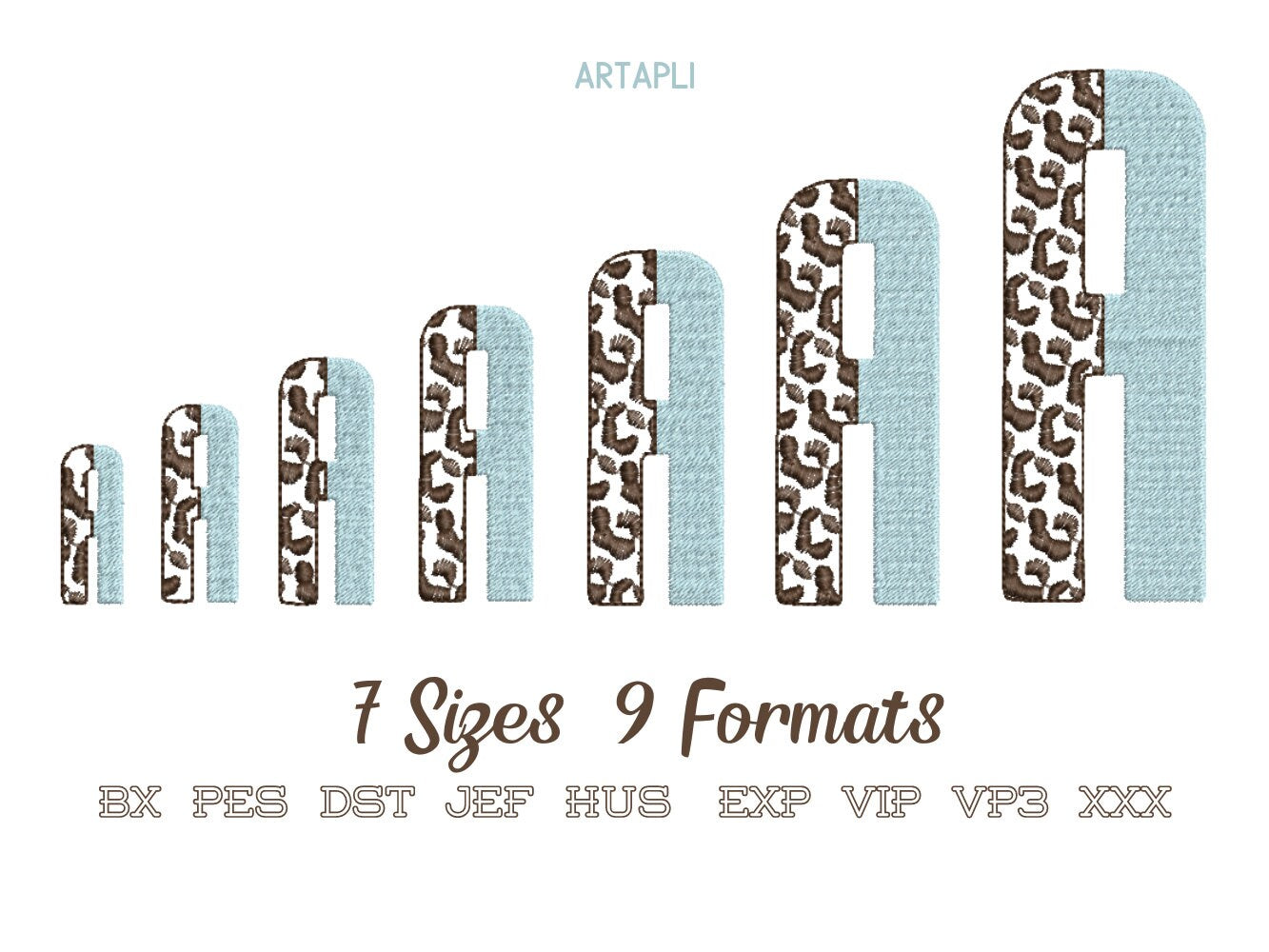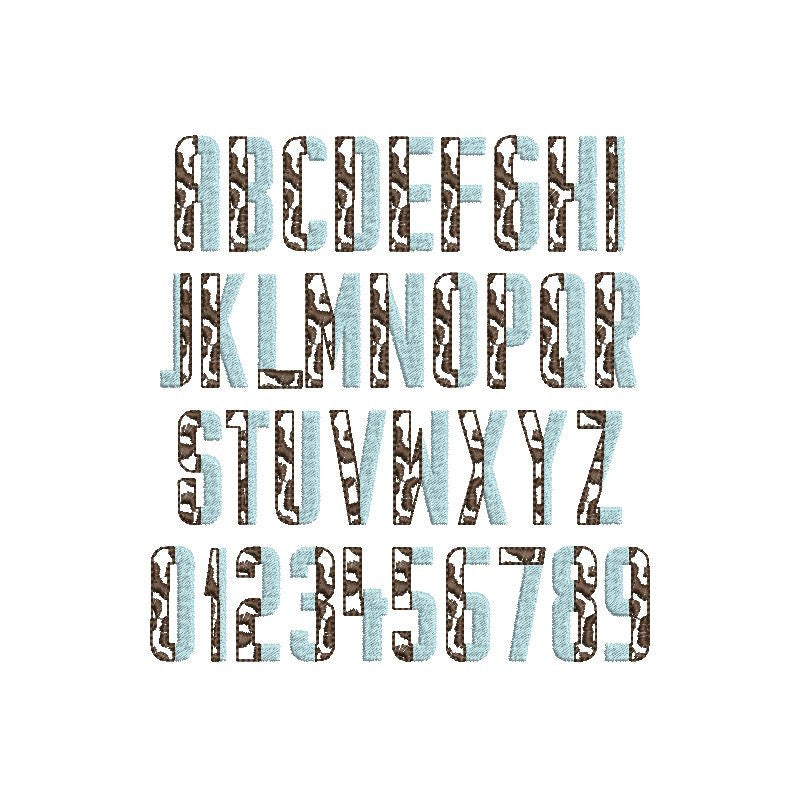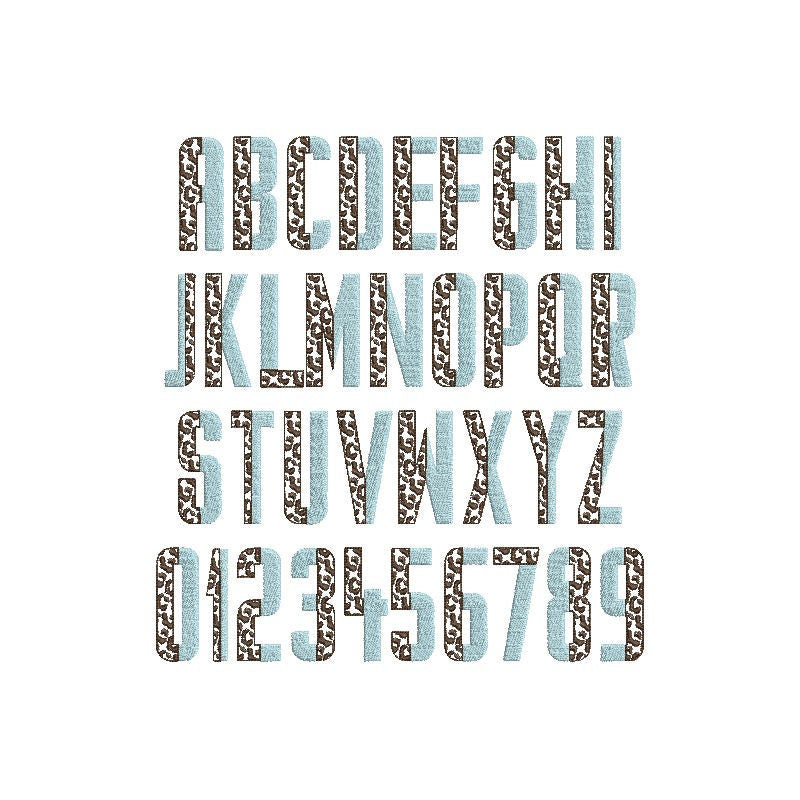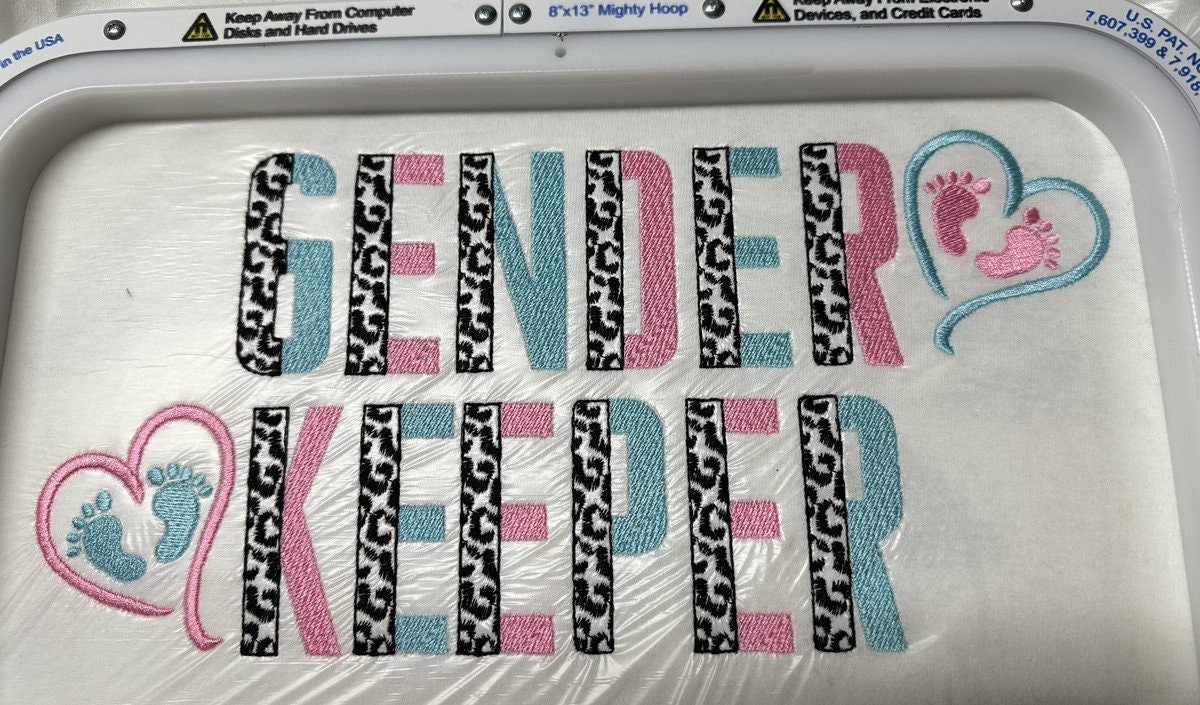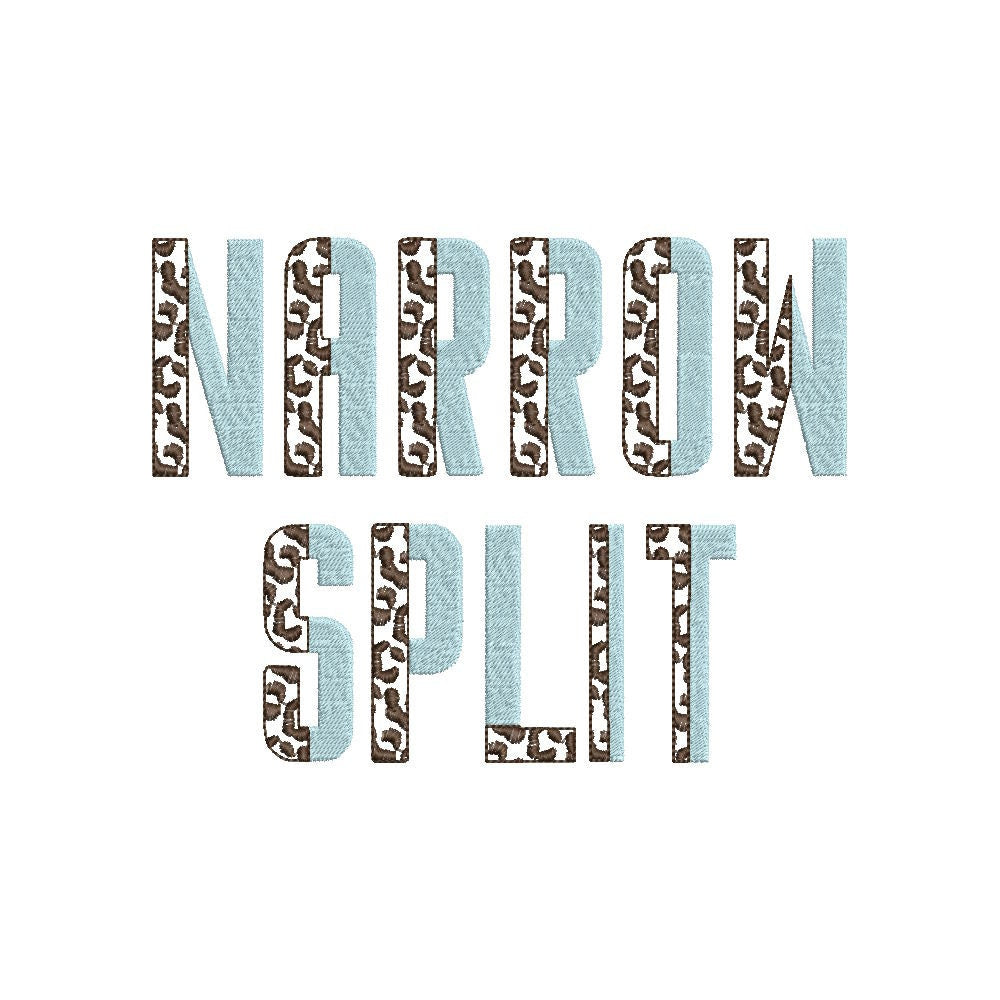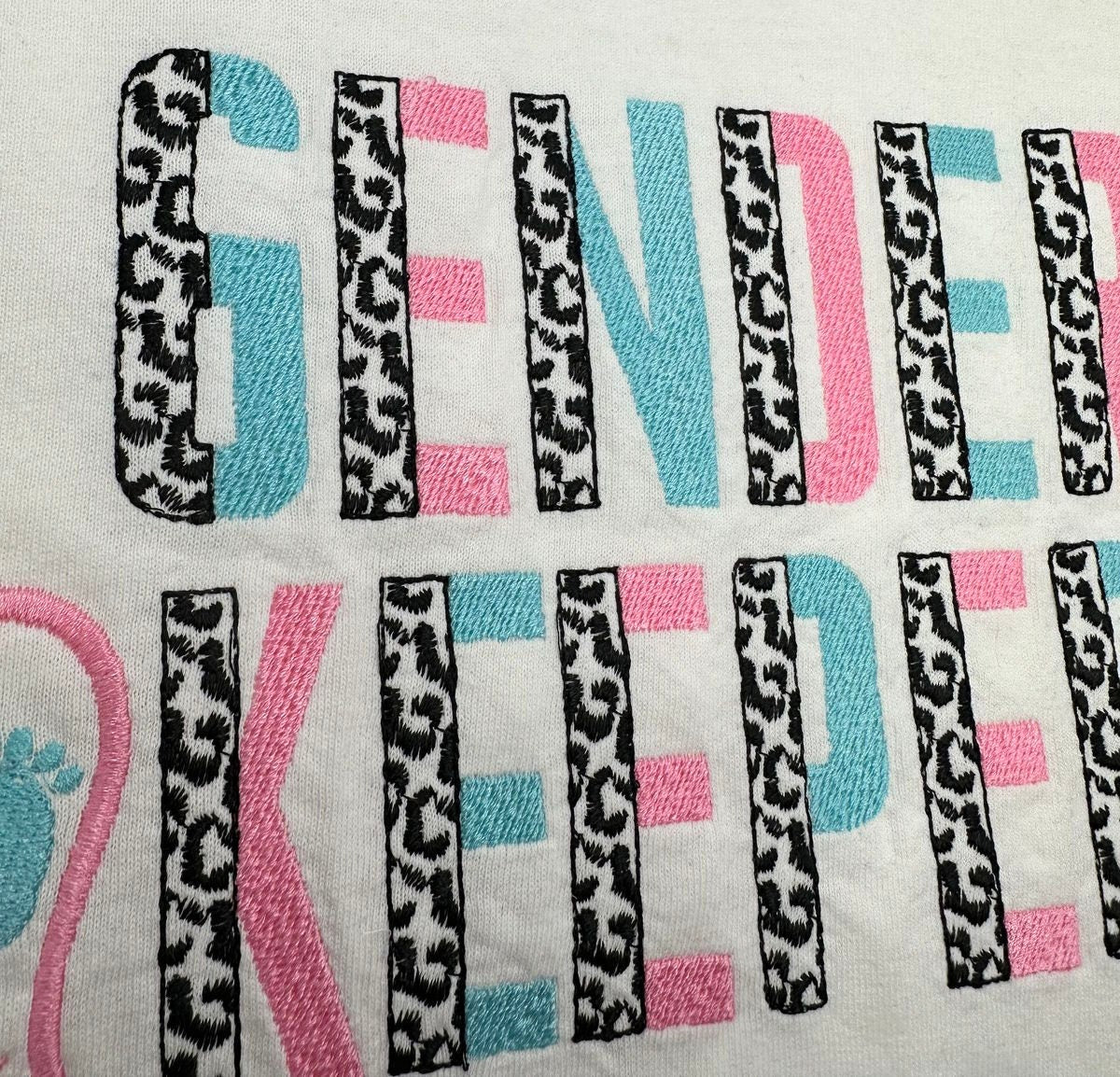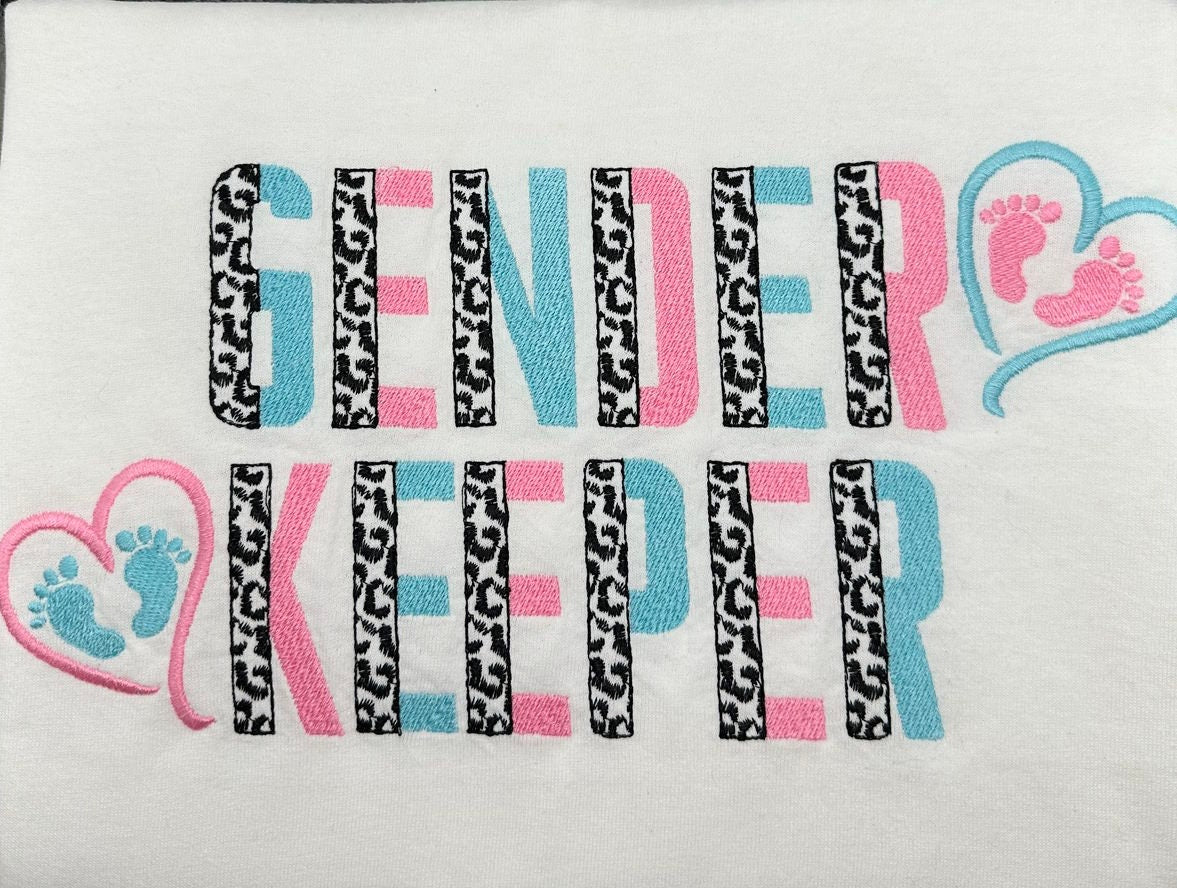
Leopard Spots and Fill Stitch Narrow Split Font
Or click to open the linkA narrow duotone split font: one half leopard spots, the other half solid fill. Bold for names and monograms on shirts and bags.
The leopard half is open, so the fabric shows through. Uppercase A to Z and numbers 0 to 9 in seven sizes: 1.4, 1.7, 2.1, 2.6, 3.1, 3.8 and 4.7 inches.
- Narrow leopard split font
- Uppercase A-Z and numbers 0-9
- 7 sizes, 1.4 to 4.7 in